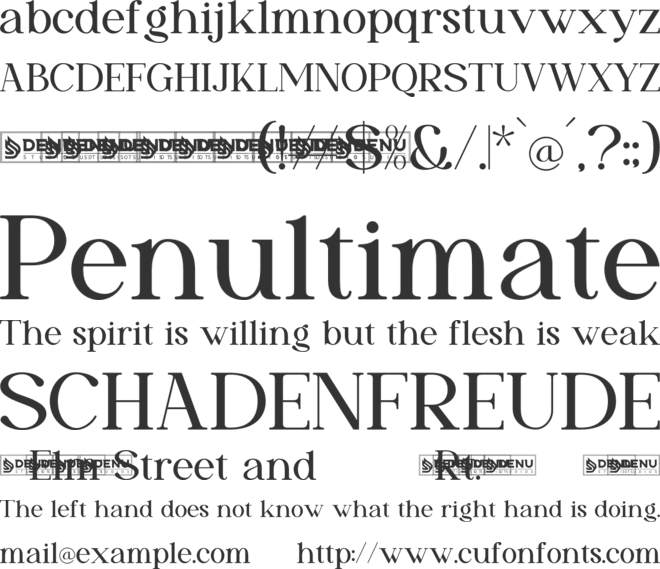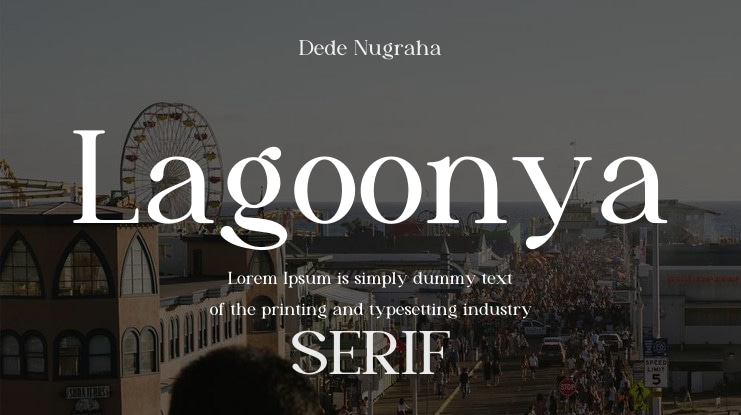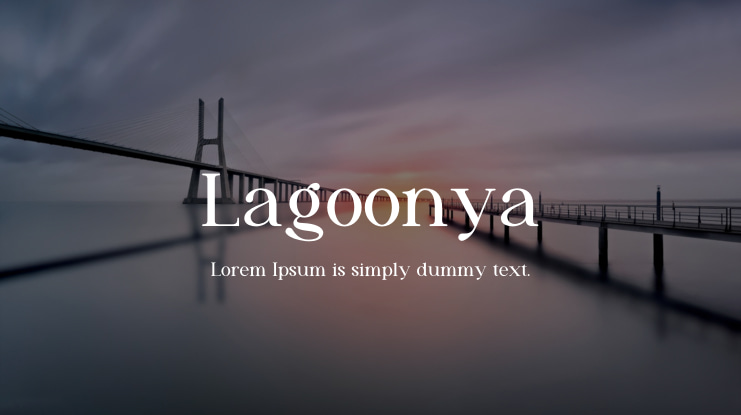
Lagoonya Font
Lagoonya | Modern Stylish Serif font is versatile and perfect for various projects including logos, branding, homeware designs, product packaging, quotes, posters, and more. By downloading or using this font, you agree to the following terms: - This demo font is for personal use only. Commercial use is not permitted. - Purchase the full version and commercial license at https://gracetypestudio.com/lagoonya-modern-stylish-serif/. - Corporate use requires a Corporate license. - For custom licensing, contact us at https://gracetypestudio.com/contact/. - Donations are welcome via PayPal at https://www.paypal.com/paypalme/denustudios. Explore more fonts at https://gracetypestudio.com/.